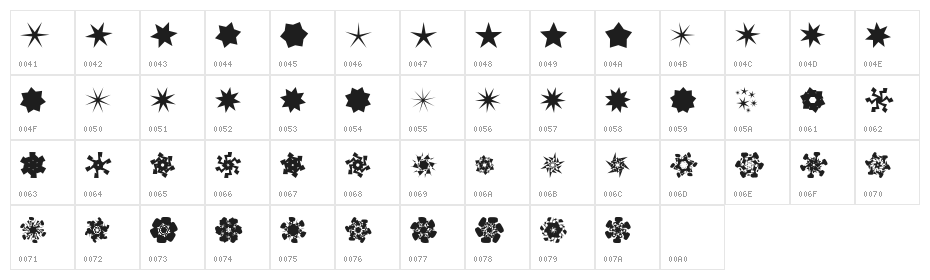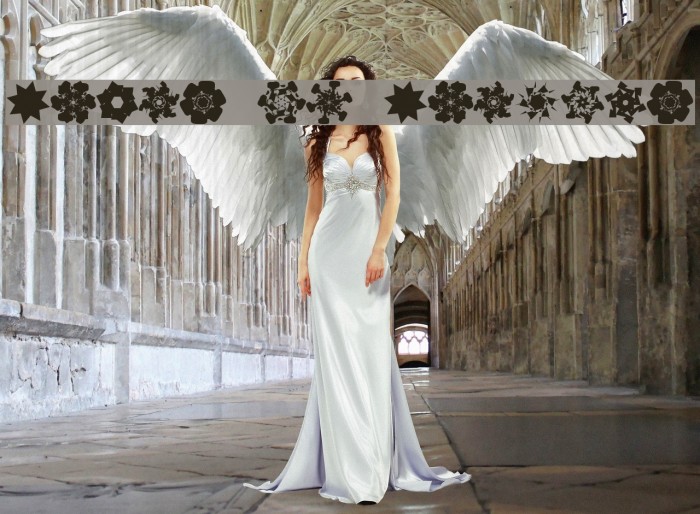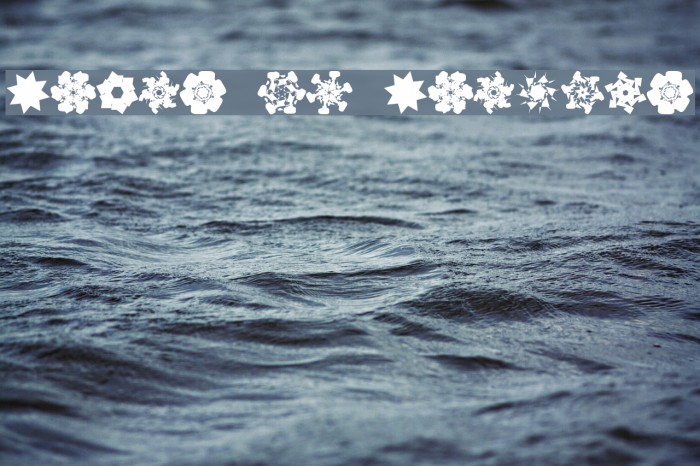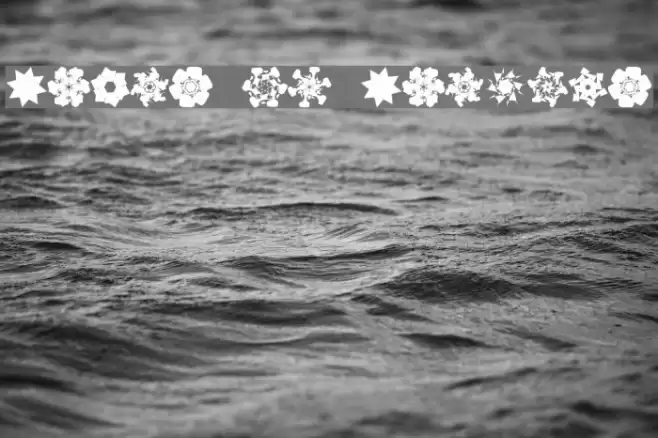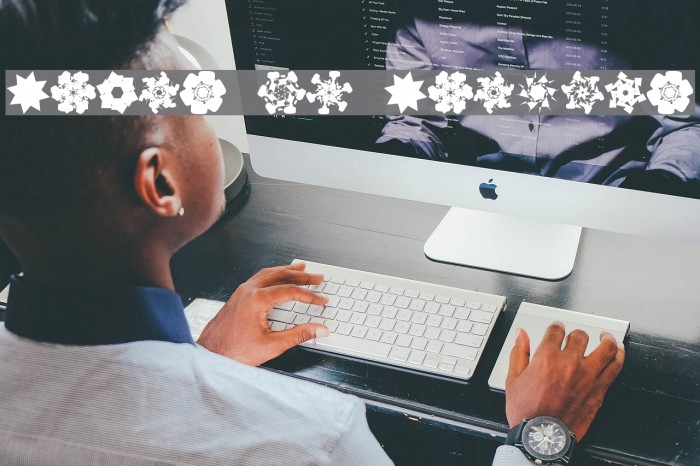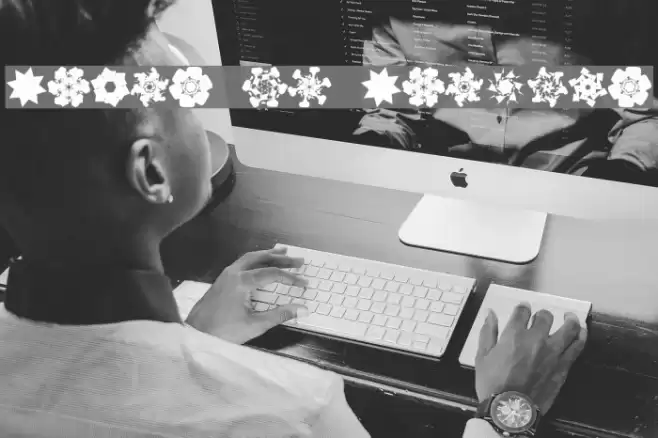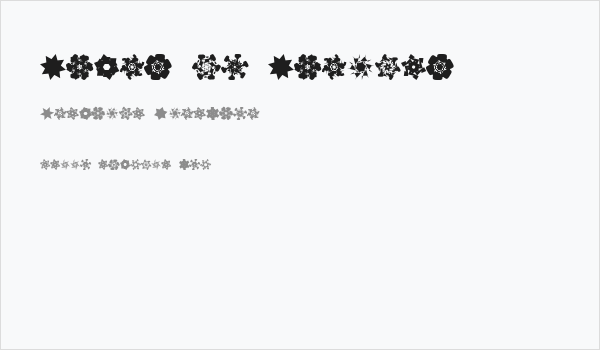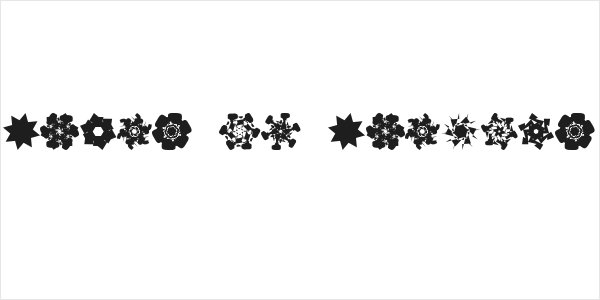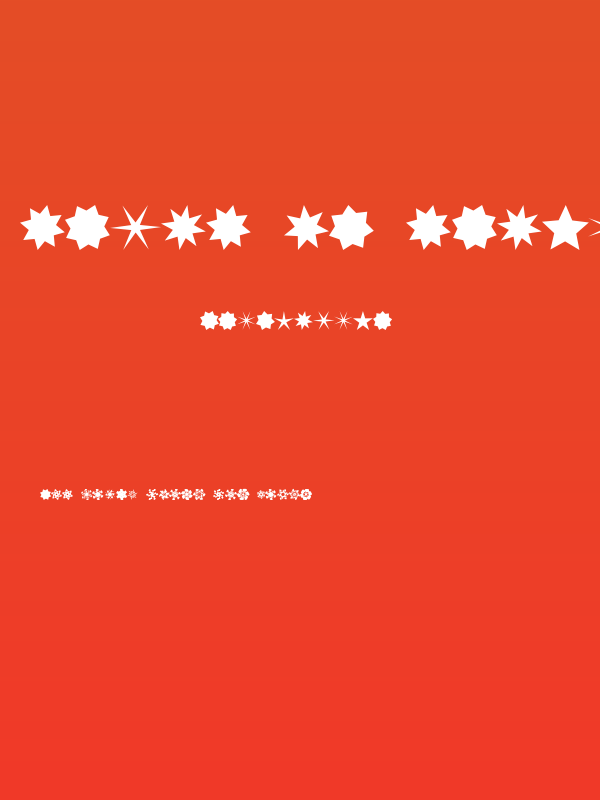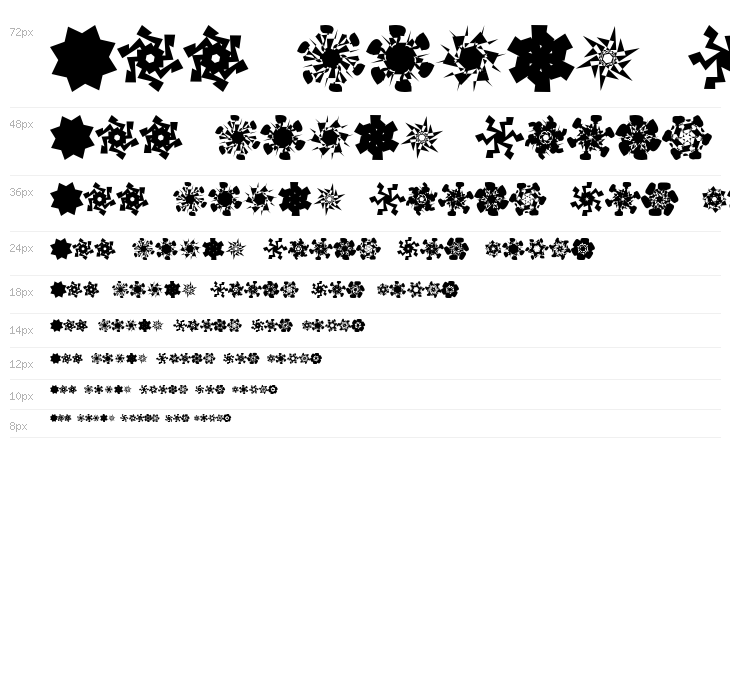
Stars no Stripes Font
Stars no Stripes Description
A decorative dingbat font featuring a wide variety of starburst and geometric star shapes, ranging from simple to highly intricate designs, all in solid black silhouettes. The glyphs vary in complexity and size, with some including fine lines and others bold, filled forms.
| Use Case | Icons, graphic accents, borders, digital art elements. |
| Proposed Projects | Holiday cards, certificates, invitations, scrapbooking, graphic embellishments, digital stickers. |